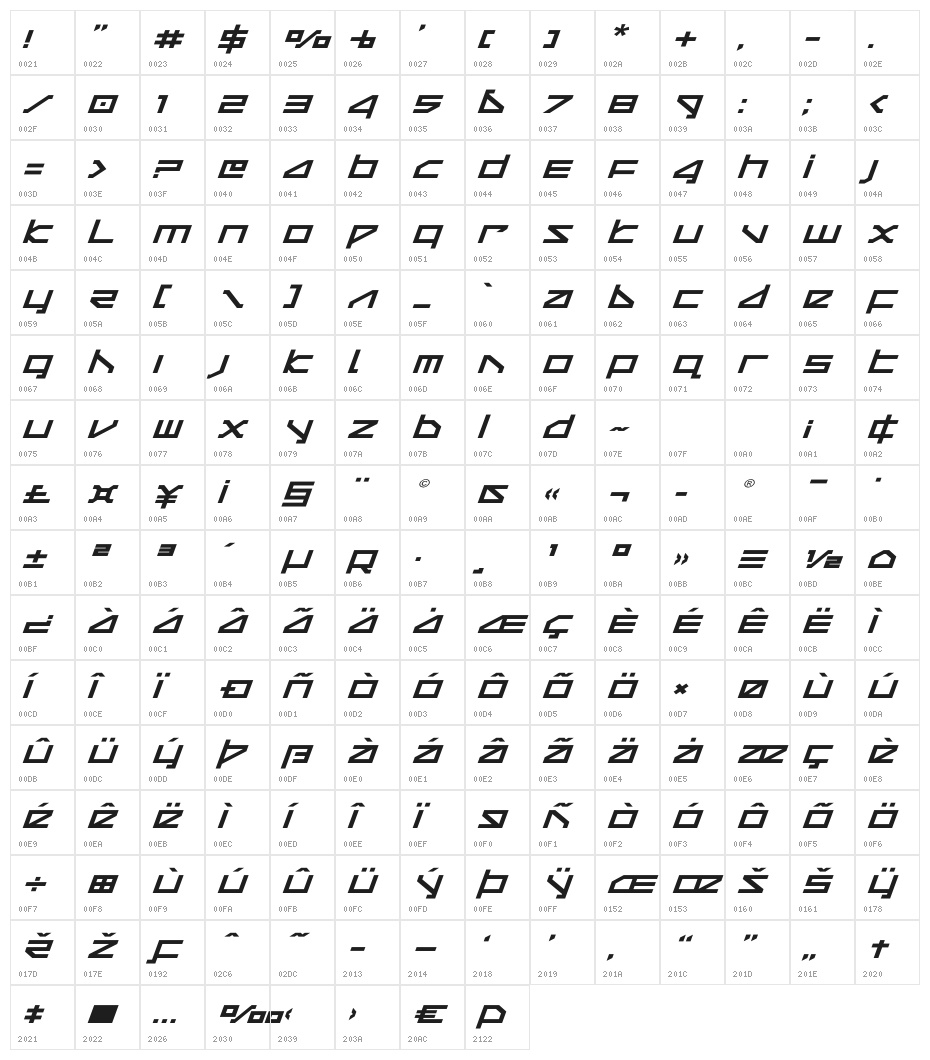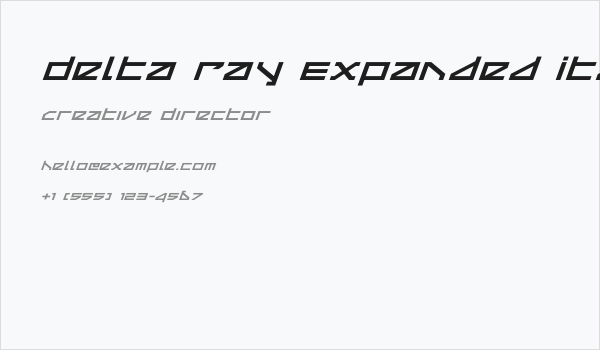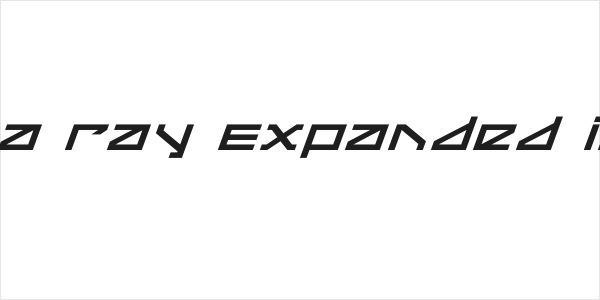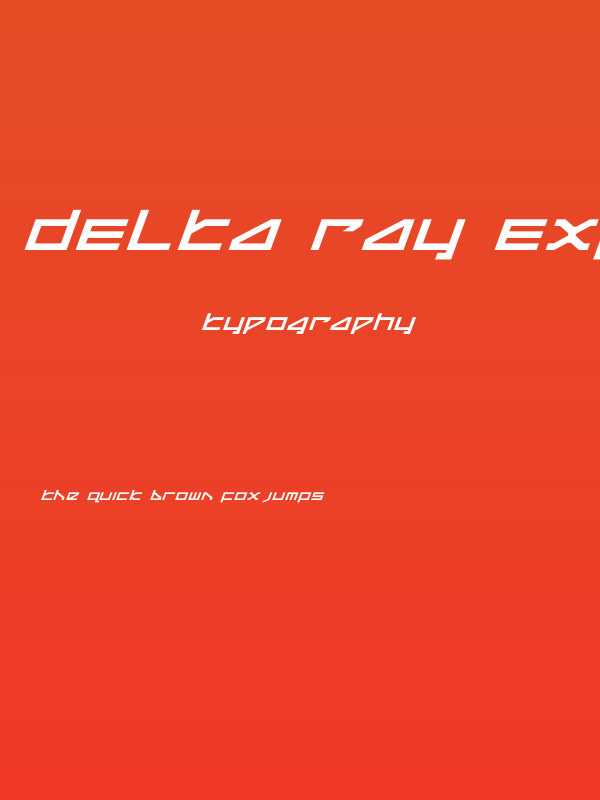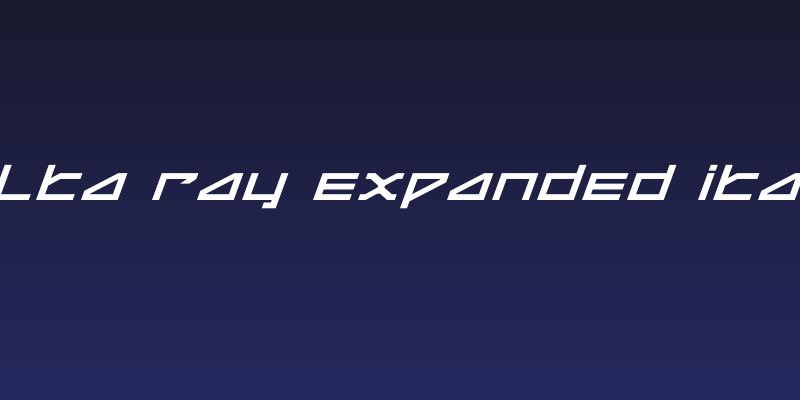
Delta Ray Expanded Italic Font
Delta Ray Expanded Italic Description
This font features a futuristic and angular design with a distinct italic slant, giving it a dynamic and forward-moving appearance. The characters are expanded, providing a sense of space and openness. The sharp edges and geometric shapes contribute to its modern and technological feel. Each letter is crafted with precision, maintaining a consistent style throughout the alphabet. The numbers and special characters follow the same design principles, ensuring uniformity across all glyphs. This font is ideal for projects that require a bold and innovative look.
| Proposed Projects | Ideal for technology branding, sci-fi movie posters, video game titles, and modern advertising campaigns. |